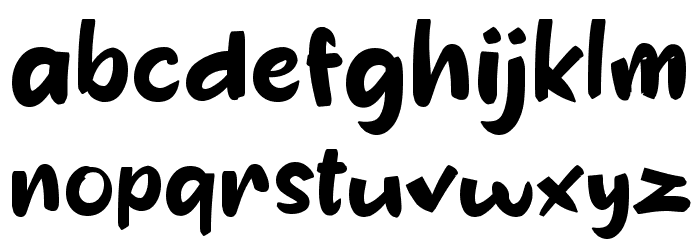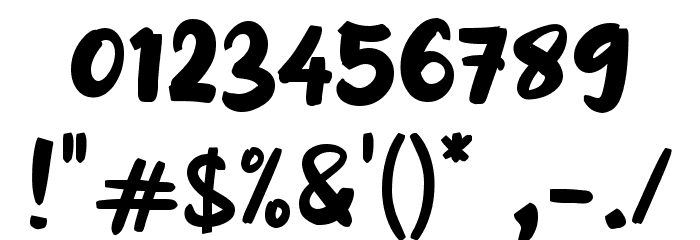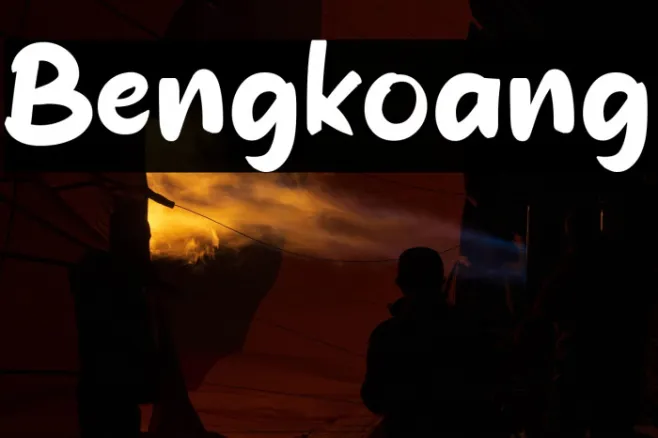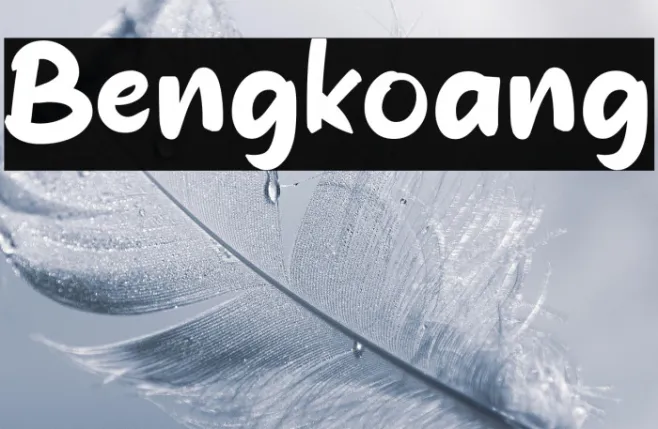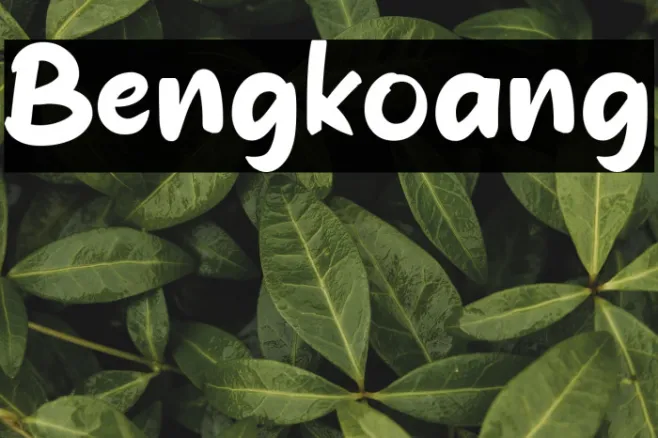
Bengkoang Font
This font features a bold and playful style with a handwritten appearance. The letters are rounded and slightly irregular, giving it a casual and friendly look. The uppercase and lowercase characters maintain a consistent weight, contributing to its bold presence. The numbers and special characters are designed with the same playful aesthetic, making them easily readable and visually appealing. This font's unique style is perfect for projects that require a touch of personality and creativity.
A bold, playful handwritten font with rounded, irregular characters.
- Font: Bengkoang
- Proposed Projects: Ideal for children's books, playful branding, casual invitations, and creative posters.
- Category: Handwritten
- Overall Style: Playful